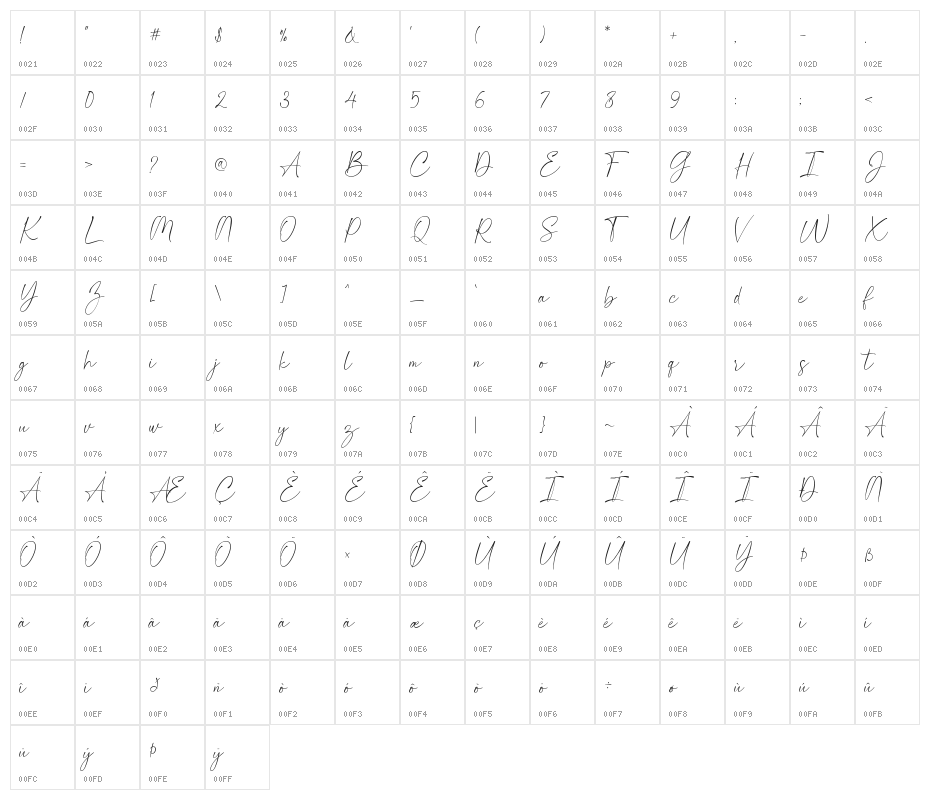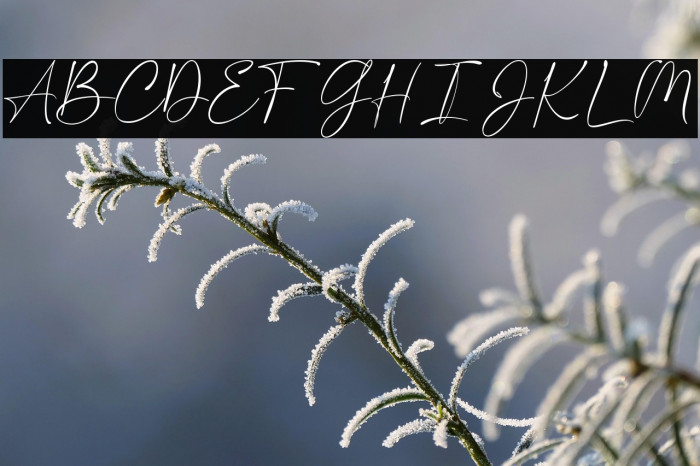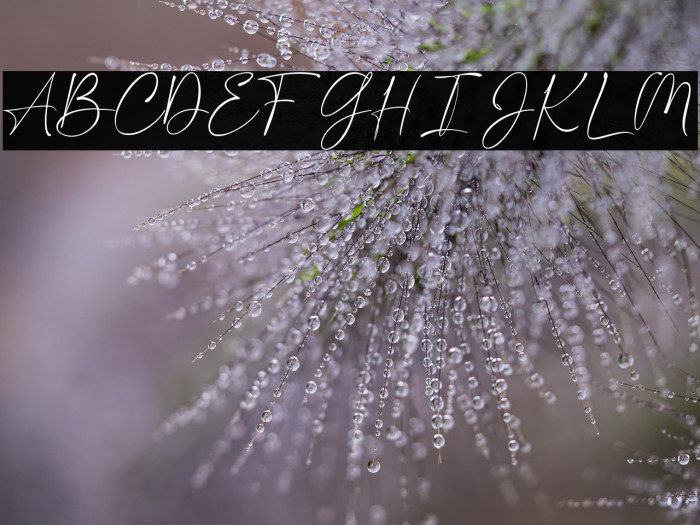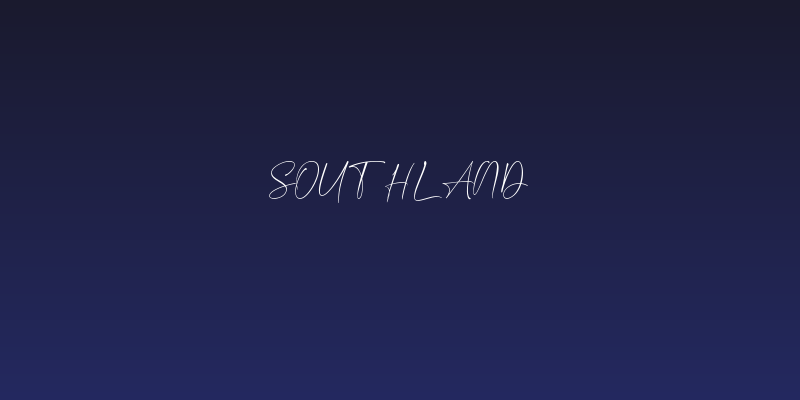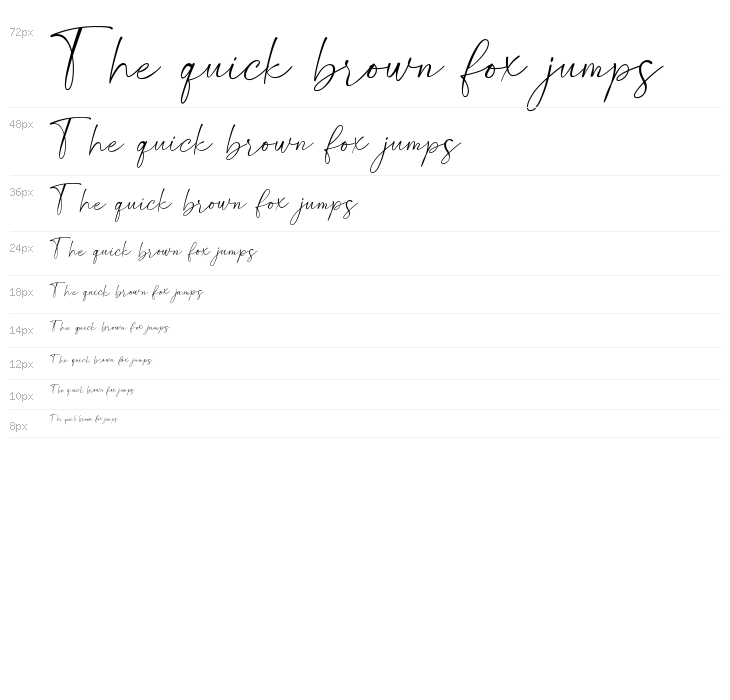
Southland Font
Southland Description
This font exudes elegance and fluidity, characterized by its script style that mimics the natural flow of handwriting. The letters are connected in a seamless manner, with each character exhibiting a graceful curve and a slight slant to the right. The strokes are thin and consistent, providing a delicate appearance. The uppercase letters are slightly larger and more ornate compared to the lowercase, adding a touch of sophistication. Numbers and special characters maintain the same flowing style, ensuring a cohesive look throughout. This font is ideal for projects that require a personal or artistic touch.
| Proposed Projects | Wedding invitations, greeting cards, personal branding, artistic projects, and elegant stationery. |